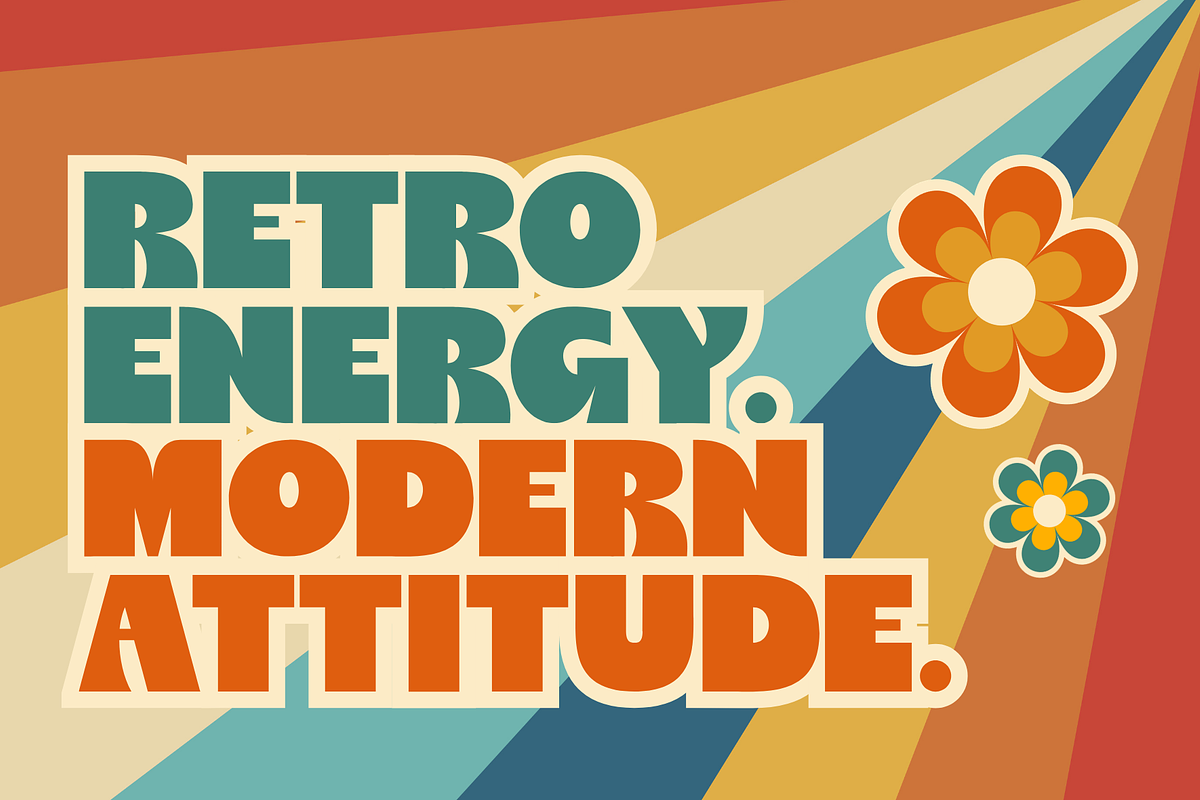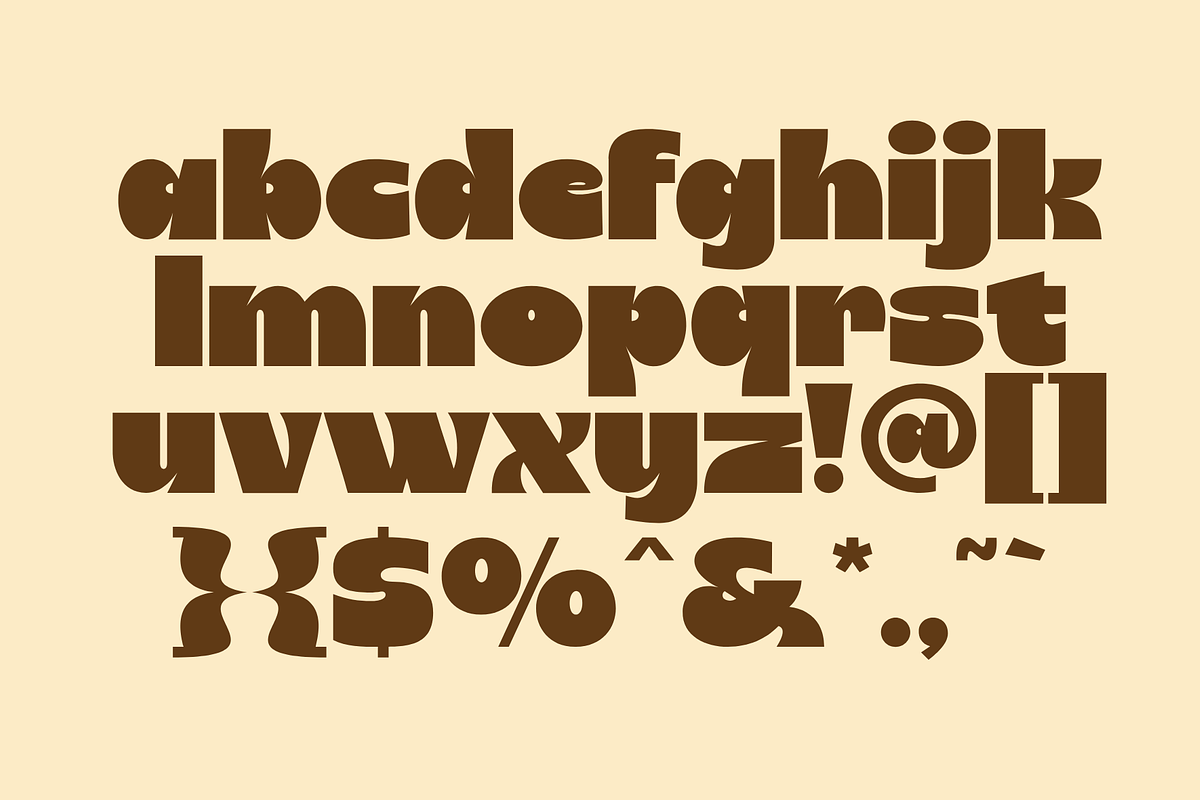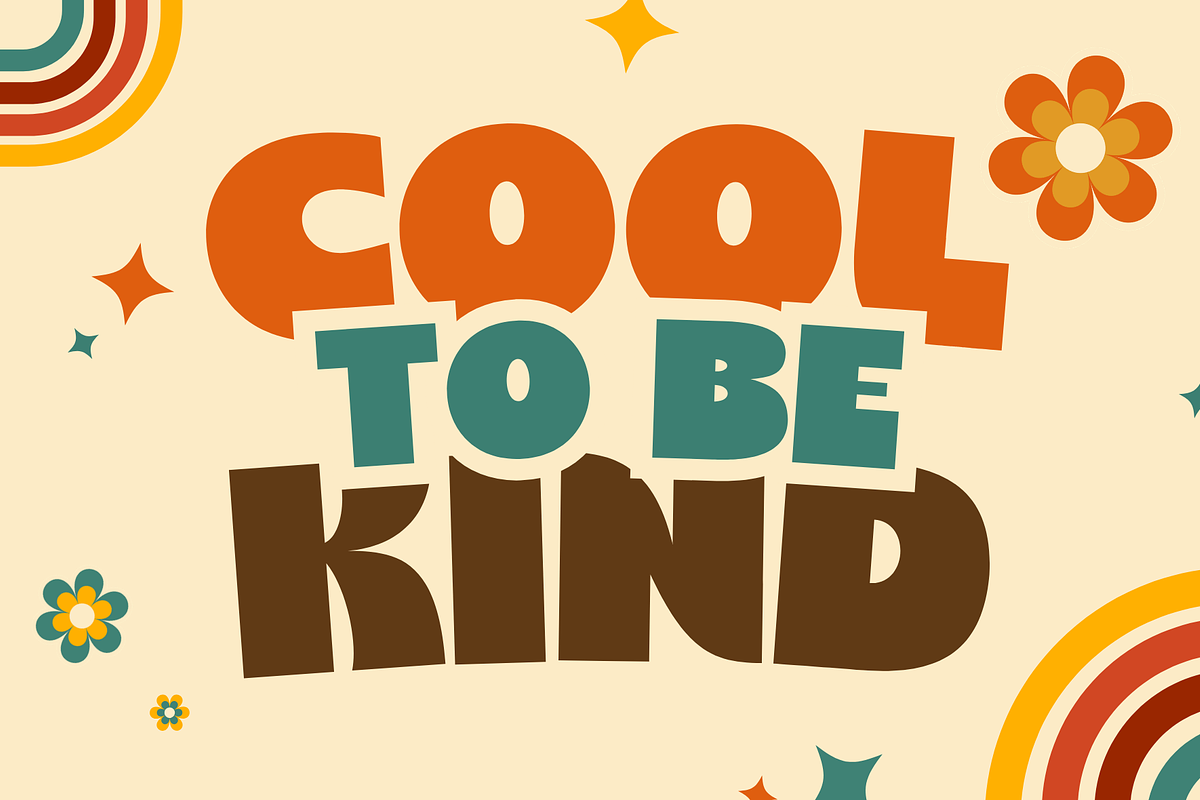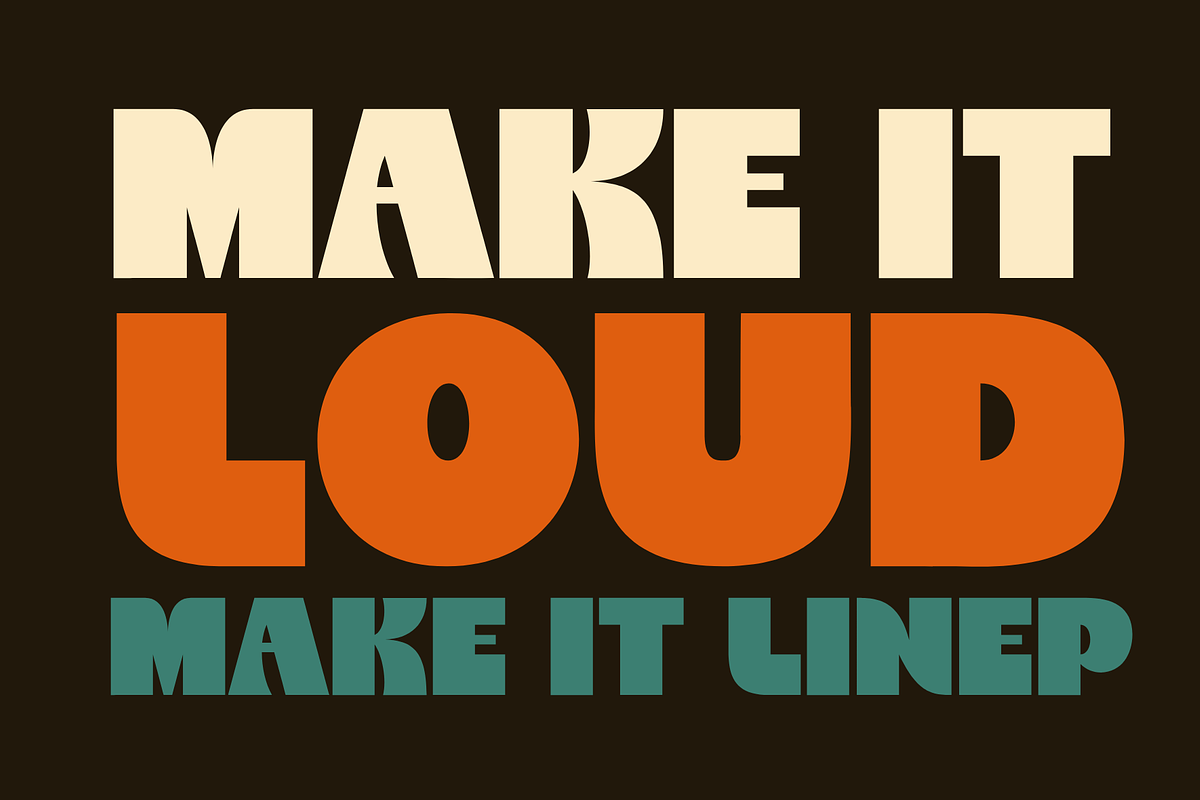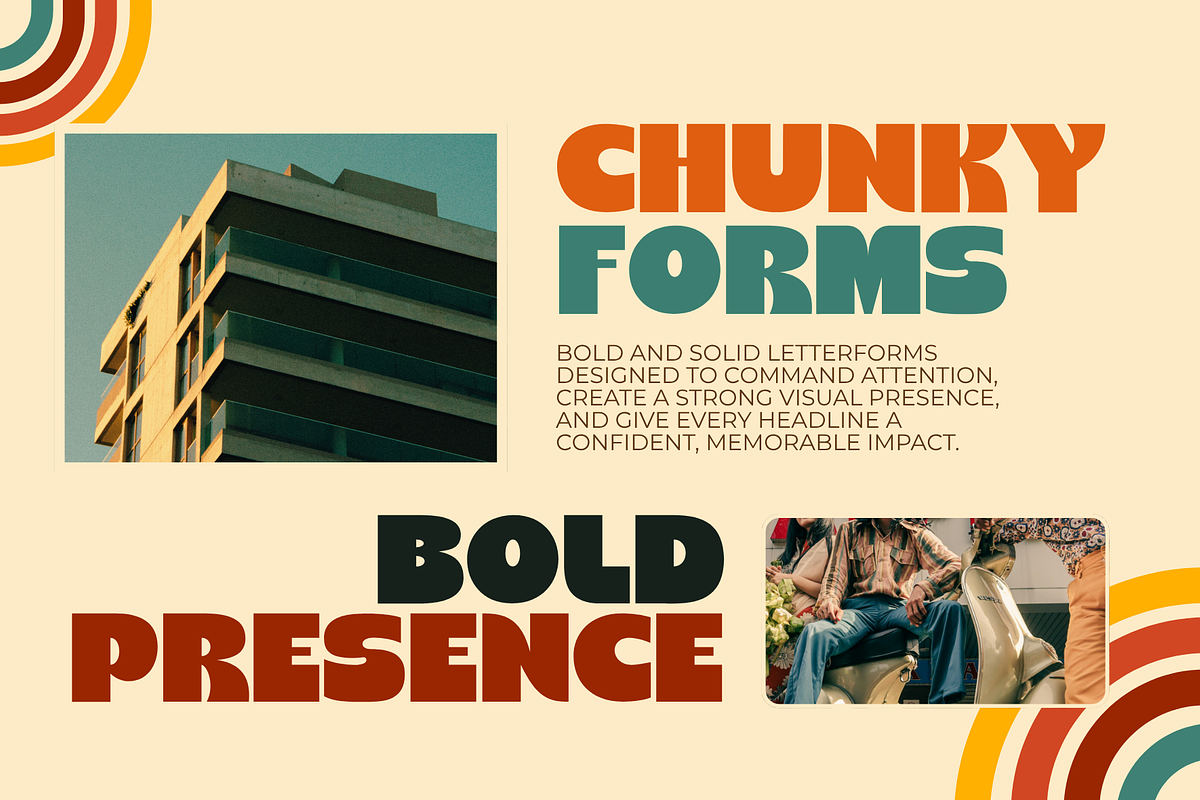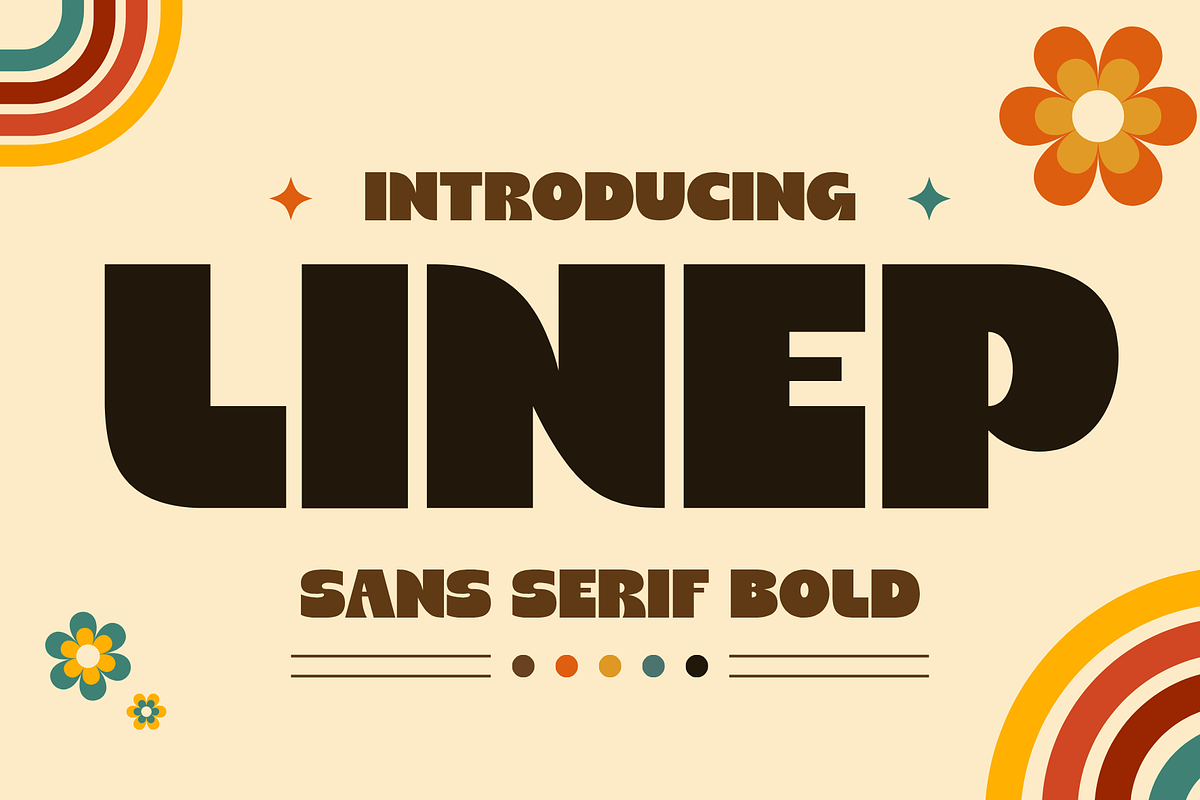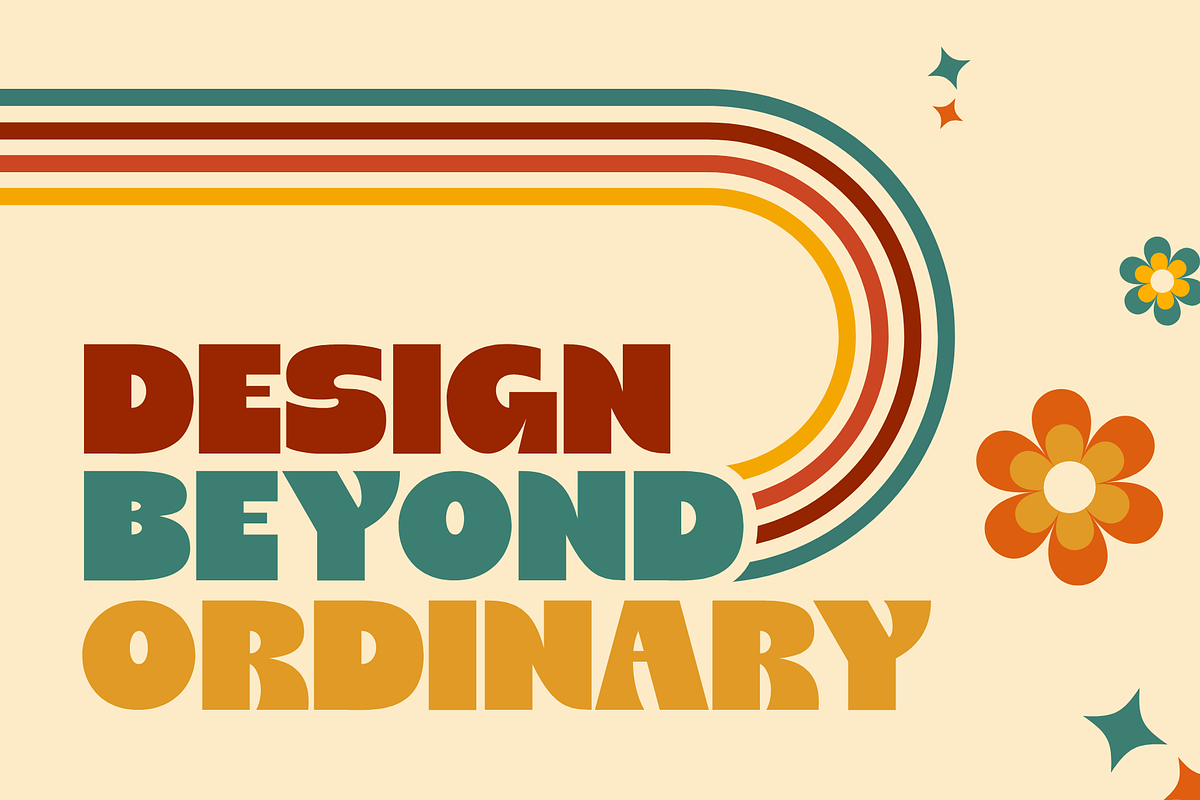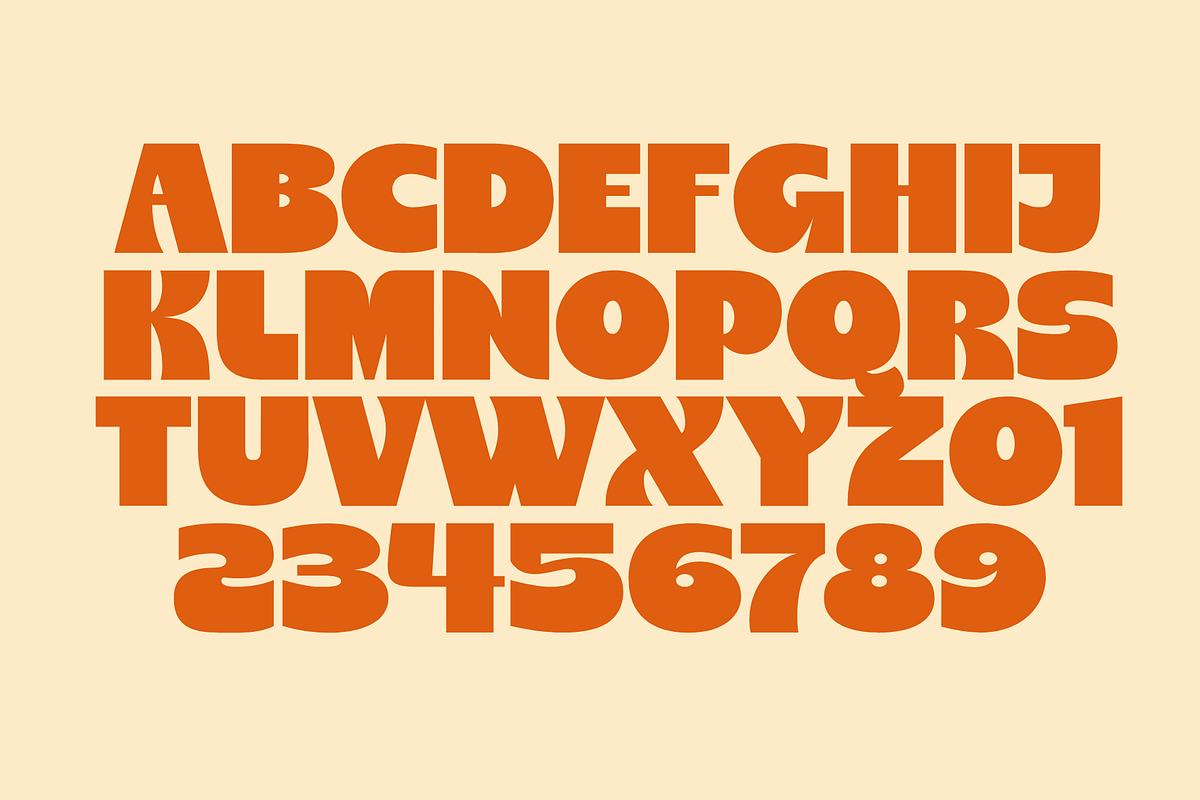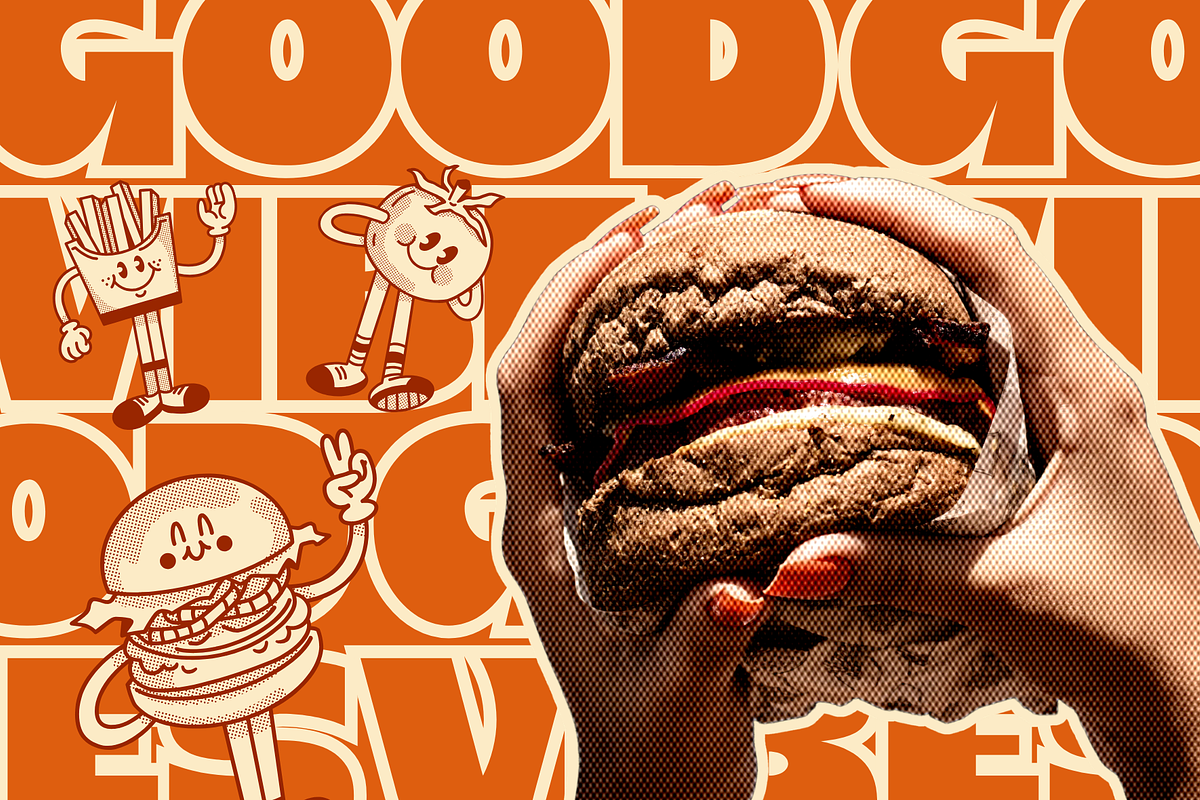
Linep – Bold Retro SansSerif Display
Linep is a bold and playful retro sans serif display font designed to bring a strong, energetic, and distinctive personality to your creative projects. Featuring chunky letterforms, smooth curves, and unique geometric details, Linper combines a vintage-inspired aesthetic with a modern and contemporary feel. Its bold appearance makes it highly impactful for headlines, logos, branding, posters, packaging, social media graphics, advertising, and other display-focused designs. The rounded and slightly groovy character adds a fun nostalgic touch while maintaining excellent visual presence and readability.